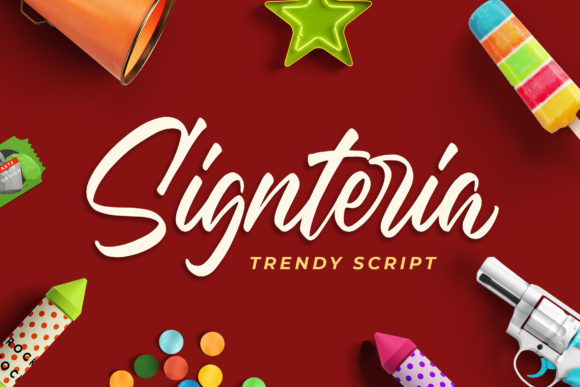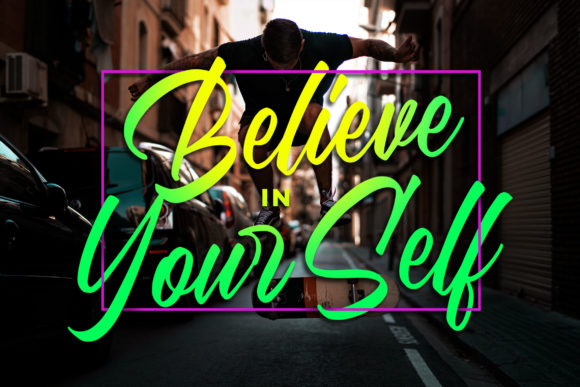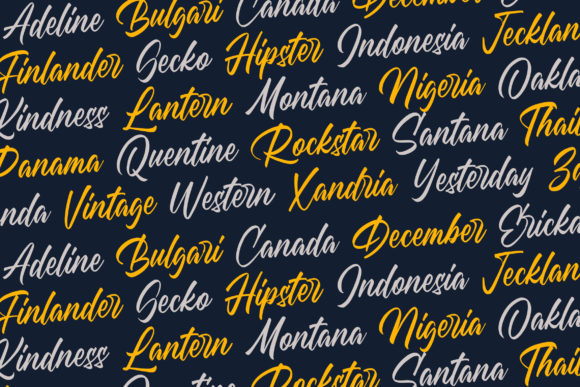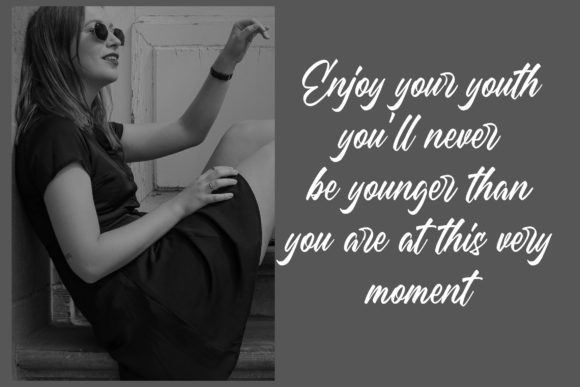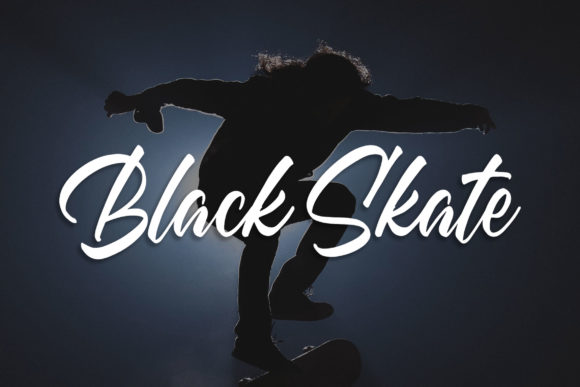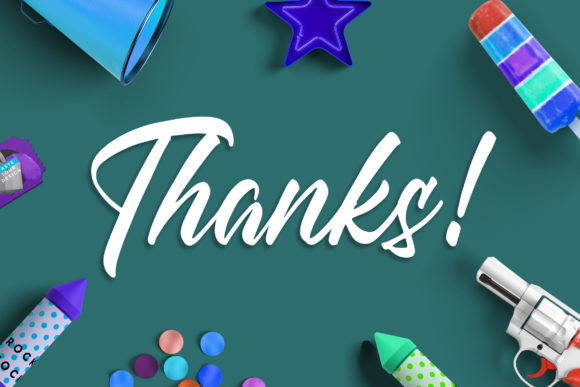
HomeScript FontsSignteria Font Script Fonts Signteria Font FacebookXPinterestWhatsApp Signteria Font Poster 2 Signteria Font Poster 3 Signteria Font Poster 4 Signteria Font Poster 5 Signteria Font Poster 6 Signteria Font Poster 7 About Signteria Font Signteria is a cool and fun script font that will turn any design idea into an authentic piece of art. DOWNLOAD NOW People also explored Kafenot Font The Bonsay Font Janjitake Font Terence Font Brush Stroke Font Flowers Font Zafina Font Allow Font Sthefany Font 350 0 TagsSignteria Font Previous articleSafiar FontNext articleEpic Christmas Font LEAVE A REPLY Cancel reply Comment: Please enter your comment! Name:* Please enter your name here Email:* You have entered an incorrect email address! Please enter your email address here Website: Save my name, email, and website in this browser for the next time I comment. Personal Use Free Micahel Personal Use Free Read more about this font Budmo Personal Use Free Read more about this font Jabirah Personal Use Free Read more about this font Turpentine Personal Use Free Read more about this font BLOG Free Fonts Risk: Why Free Fonts Can Be Dangerous for Designers Free Fonts Risk: Why Free Fonts Can Be Dangerous for Designers Using free fonts is a common practice in web and graphic design. However, the... How to Install and Use Fonts on Windows, macOS, and Web Projects Free vs Paid Fonts: Why Investing in Premium Fonts Is Worth It To increase your work productivity, choose the most readable fonts.